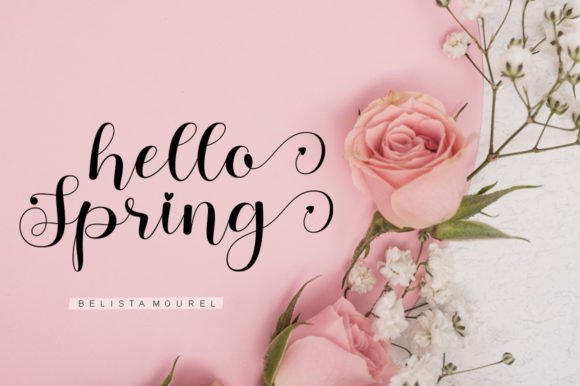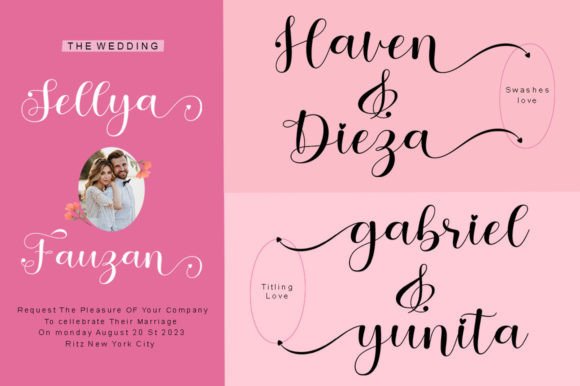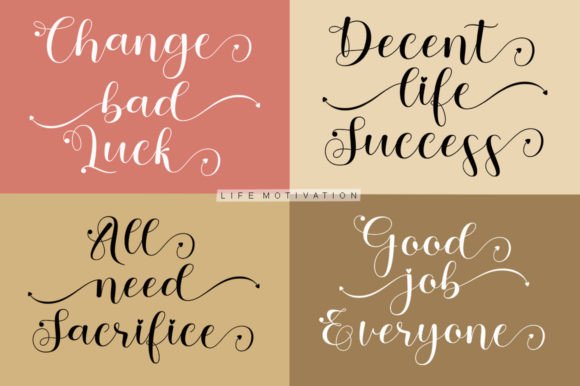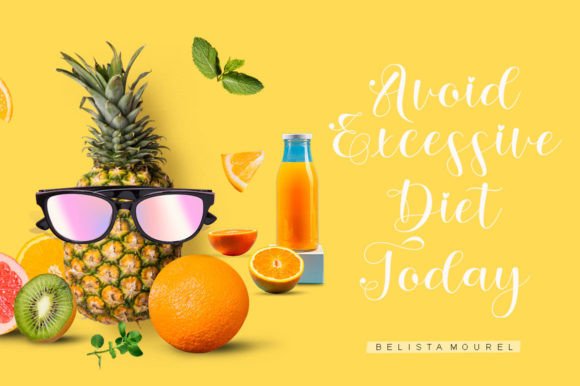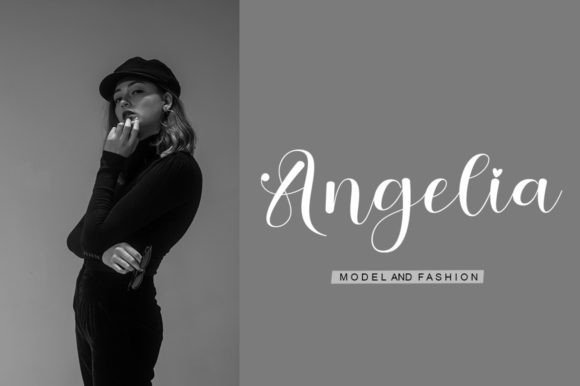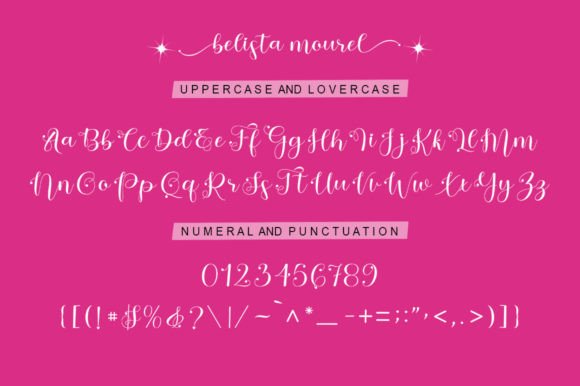
Introducing Belista Mourel: The Charming Script Font for Creative Projects
Are you looking for a font that can add a personal touch to your designs? Look no further than Belista Mourel, a beautiful and elegant script font that’s perfect for a wide range of creative projects. In this article, we’ll take a closer look at the features and benefits of Belista Mourel, and explore how you can use it to elevate your designs.
A Natural Handwritten Feel
Belista Mourel is a script font that boasts a natural handwritten feel, making it perfect for designs that require a personal touch. The font’s flowing lines and subtle imperfections give it a charming and organic look that’s sure to capture the attention of your audience. Whether you’re designing a logo, creating a wedding invitation, or crafting a brand identity, Belista Mourel is the perfect choice.
Versatile and Multifaceted
One of the best things about Belista Mourel is its versatility. This font can be used for a wide range of projects, including:
- Headlines and titles
- Invitations and wedding stationery
- Clothing and apparel
- Signage and displays
Whether you’re a designer, crafty DIY enthusiast, or small business owner, Belista Mourel is the perfect font to add a touch of elegance and sophistication to your projects.
Belista Mourel is PUA (Private Use Area) encoded, which means that you can access all of the glyphs and ligatures with ease. This makes it simple to customize your text and add unique touches to your designs. With PUA encoding, you can:
- Access a wide range of glyphs and ligatures
- Customize your text with ease
- Create unique and personalized designs
Belista Mourel offers a range of benefits for designers and crafters, including:
- High-quality design: The font is designed to the highest standards, ensuring that your projects look professional and polished.
- Flexibility: Belista Mourel can be used for a wide range of projects, from logos and branding to invitations and clothing.
- Unique and personalized designs: With PUA encoding, you can create unique and personalized designs that stand out from the crowd.
Tips for Using Belista Mourel
Here are a few tips for getting the most out of Belista Mourel:
- Experiment with different sizes and colors: Belista Mourel looks great in a range of sizes and colors, so don’t be afraid to experiment and find the perfect combination for your project.
- Pair with other fonts: Belista Mourel pairs well with a range of other fonts, so try combining it with different fonts to create a unique and interesting look.
- Use it for headlines and titles: Belista Mourel is perfect for headlines and titles, so try using it to add a touch of elegance and sophistication to your designs.